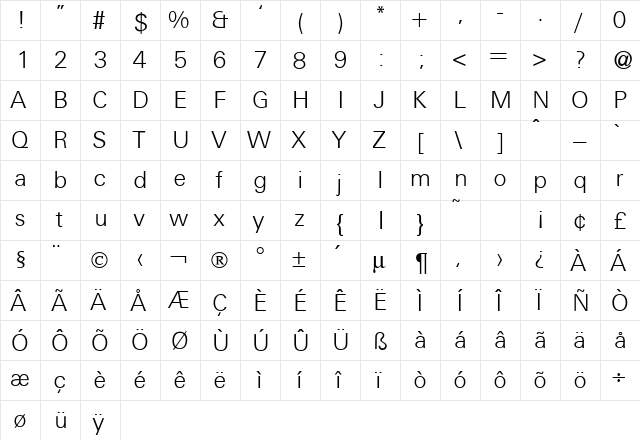
UniversalLgtDB Normal Font Preview
UniversalLgtDB Normal
Design Context for UniversalLgtDB Typeface
UniversalLgtDB takes a measured approach to typography — its balanced proportions and neutral character make it a reliable workhorse for both digital and print work.
Pro Tip: Use UniversalLgtDB in both headline and body roles to test its range before committing to a single application.